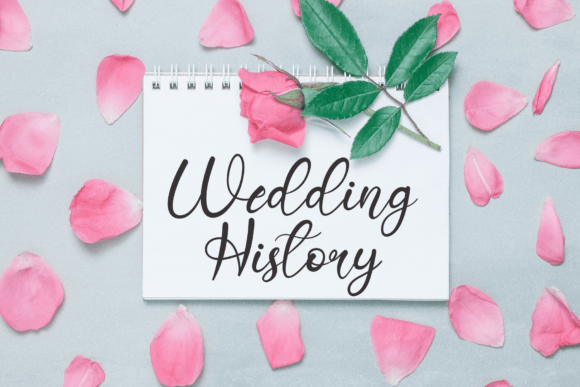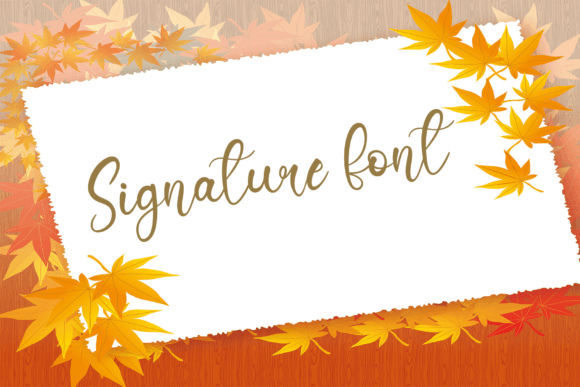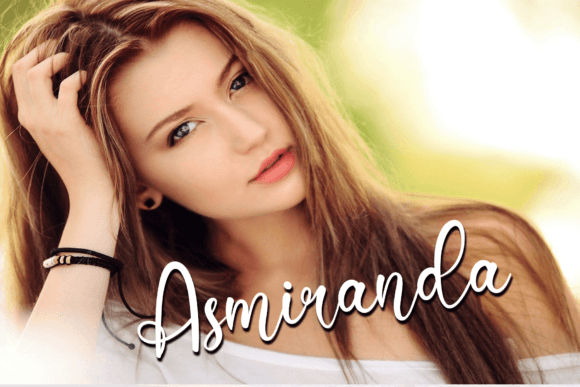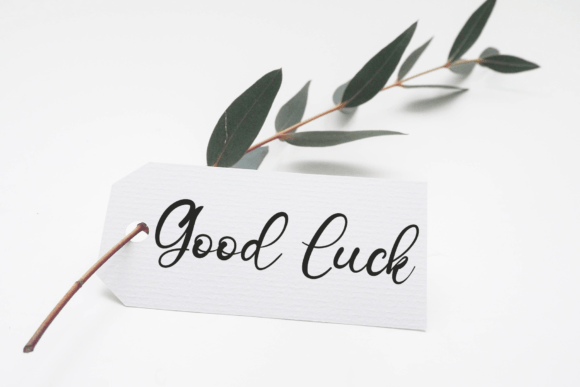
Hello Amsterdam Font
About Hello Amsterdam Font
“Hello Amsterdam: Where Elegance Meets Magic
Introducing Hello Amsterdam, a truly magical handwritten font meticulously crafted to infuse your designs with a touch of timeless elegance. This enchanting font transcends ordinary calligraphy, transforming your creative ideas into genuine works of art. Whether you’re searching for the perfect font for Instagram posts or seeking captivating calligraphy scripts for DIY projects, Hello Amsterdam is the key to unlocking a world of creative possibilities.
Imagine your social media posts adorned with the graceful strokes of Hello Amsterdam. With its magical aura, this font transforms ordinary text into captivating visual stories, capturing the attention of your audience and leaving a lasting impression. Whether you’re sharing inspirational quotes, lifestyle tips, or personal anecdotes, Hello Amsterdam elevates your content, infusing it with an enchanting allure that resonates with viewers.
For DIY enthusiasts and crafters, Hello Amsterdam becomes a powerful tool, turning ordinary projects into extraordinary expressions of creativity. From handmade cards and personalized gifts to home décor and scrapbooking, this font adds a touch of elegance and sophistication to every endeavor. Let your imagination run wild as Hello Amsterdam transforms your DIY projects into masterpieces that enchant the senses.
Wedding invitations take on a new level of sophistication and charm with Hello Amsterdam. Picture your invitations graced by the magical handwritten script, setting the tone for a romantic and unforgettable celebration. This font captures the essence of love and elegance, creating an atmosphere of enchantment that envelops your wedding day. Every stroke carries the promise of a magical union, making your invitations as memorable as the event itself.
Hello Amsterdam is not just a font; it’s an enchantment. It’s the essence of elegance and magic distilled into every letterform. Its fluid lines and graceful curves create a sense of movement, as if the words themselves are dancing on the page. The font’s timeless charm and sophistication make it perfect for a wide array of projects, from branding and logos to packaging and product labels. With Hello Amsterdam, your products come to life, captivating customers with their visual allure and elegance.
In the realm of editorial design, Hello Amsterdam adds a touch of magic to magazine layouts, book covers, and advertisements. Its elegant script style transforms ordinary text into captivating narratives, drawing readers into the world of your content. Whether you’re designing a magazine spread, a book title, or an advertisement, Hello Amsterdam infuses your layouts with an irresistible charm, leaving a lasting impression on your audience.
Hello Amsterdam is more than just a font; it’s a journey into the realm of enchantment and elegance. It’s the key to unlocking the magic within your creative ideas, turning them into true pieces of art. Let Hello Amsterdam be your guide, transforming every project into a captivating masterpiece that enchants the senses and leaves a lasting impression.”